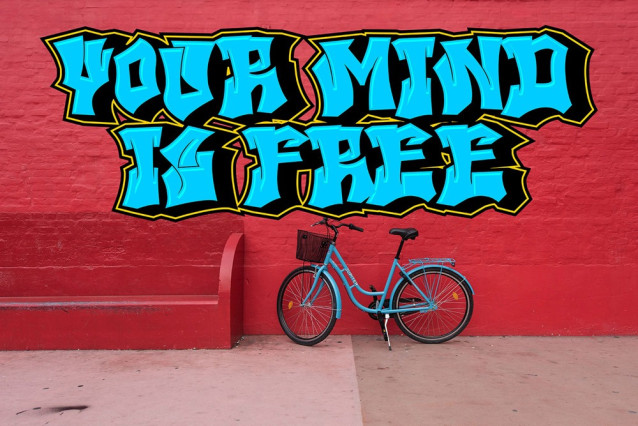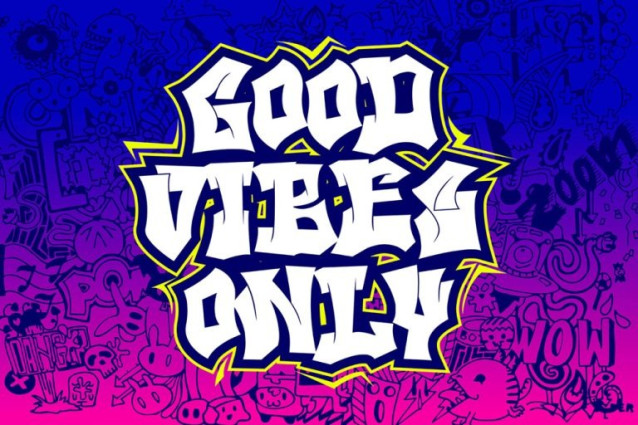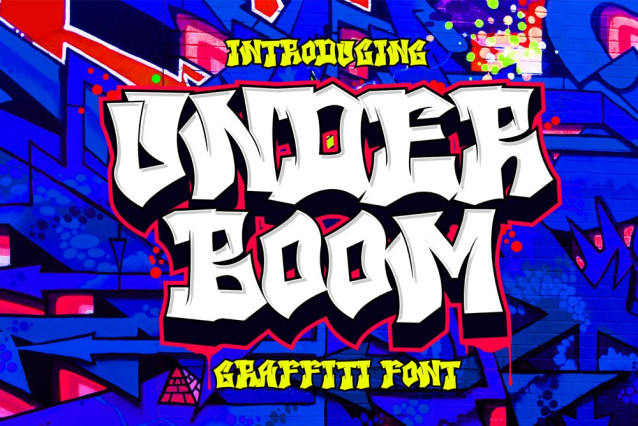
Unde Boom Font
Unde Boom Font is a high-energy graffiti font designed to unleash raw urban expression into your creative projects. Built with aggressive strokes and unpredictable shapes, this wild graffiti font captures the essence of true street bombing culture. Whether you’re creating bold streetwear branding, music artwork, or eye-catching posters, Under Boom graffiti font delivers a powerful and rebellious visual impact.
This urban graffiti font is crafted for designers who want to break the rules and create something unforgettable. With its chaotic yet controlled style, Under Boom transforms ordinary typography into explosive visual statements that demand attention.
Under Boom graffiti font stands out with its untamed and energetic design. Each letter is infused with movement and attitude, making this graffiti font feel alive and unpredictable. Inspired by real street tagging styles, this wild graffiti font brings authenticity and edge into every design.
The irregular forms and bold strokes give this urban graffiti font a unique personality that cannot be replicated by standard typefaces. It’s perfect for projects that need a raw, underground aesthetic while still maintaining readability.
If your goal is to create bold and striking visuals, Under Boom graffiti font is the perfect choice. This graffiti display font is designed to dominate layouts, making it ideal for headlines, logos, and promotional graphics. Its wild structure ensures that your typography stands out, even in crowded compositions.
This urban graffiti font is not just about chaos—it’s about controlled energy. The balance between wild shapes and legibility makes Under Boom a versatile tool for both artistic and commercial projects.